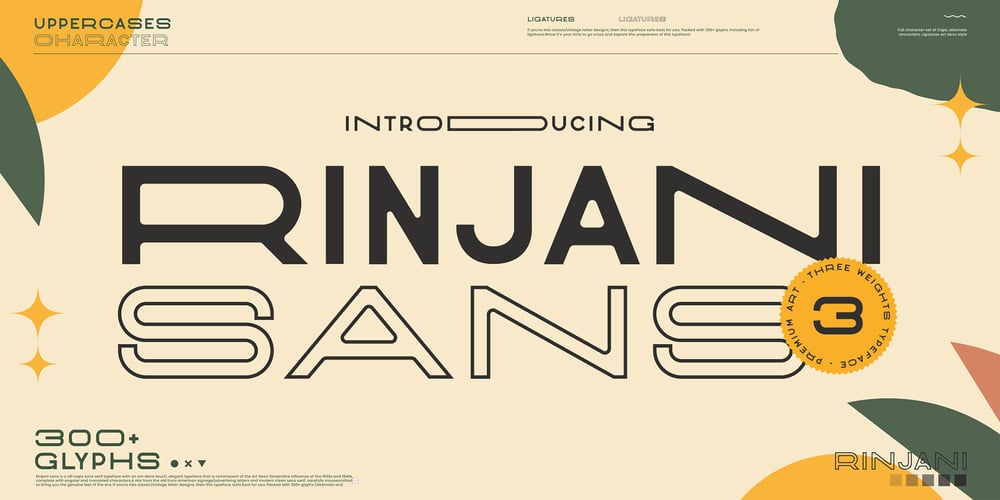
CCS Neue Rinjani
CCS Neue Rinjani font
CCS Neue Rinjani Font Family was designed by Kurt Harahap and published by Creative Corner Studio. CCS Neue Rinjani contains 3 styles and family package options. Neue Rinjani is a all-caps sans serif with Wide Stretch contemporary typographic, vintage futuristic art-deco touch Streamline influence of the 1930s and 1940s. A mix from the old Euro-American signage/advertising letters and modern clean sans serif, carefully mousecrafted to bring you the genuine feel of the era. If you’re into classic/vintage letter designs, then this typeface suits best for you.